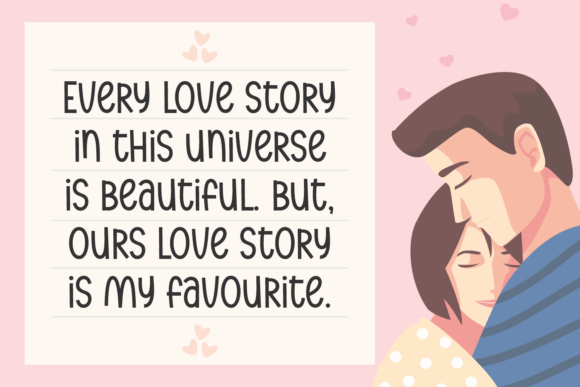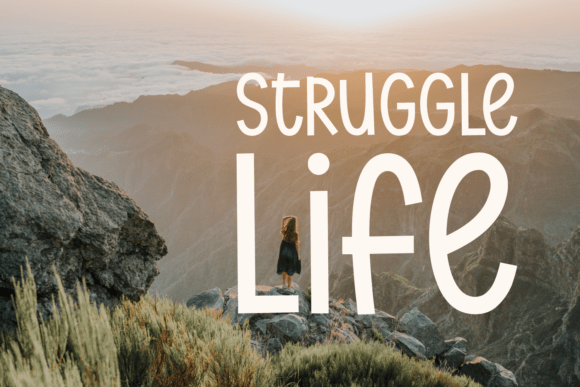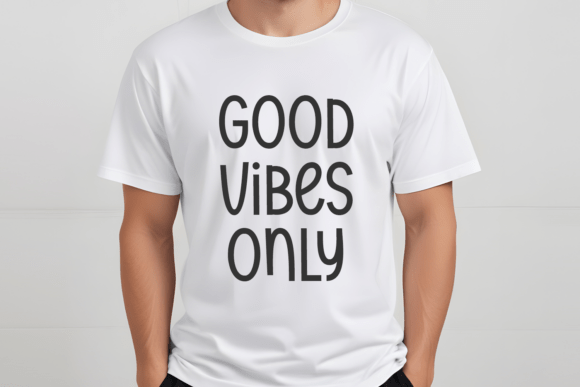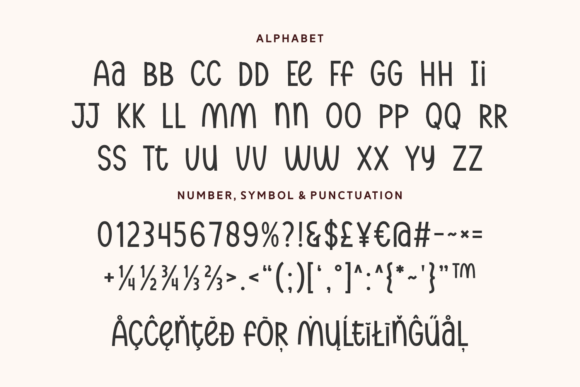
Introduction to Never Dated Font
Never Dated is a charming and versatile handwritten font that brings a personal, playful, and heartfelt touch to any design.
It’s perfect for projects that aim to evoke feelings of warmth, authenticity, and lightheartedness This font perfect for invitations, greeting cards, scrapbooking and any more design project.
Key Features of Never Dated Font